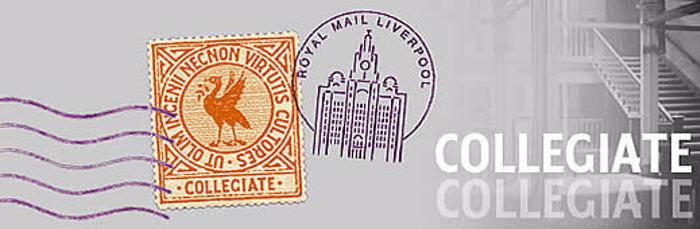
Collegiate Font
Collegiate is a full font based on the lettering around the mosaic tile badge at Liverpool Collegiate School - www.keithbates.co.uk/collegiate - a vector image of the mosaic badge is included at keystroke ± . A vector Liver Bird is included at keystroke § .